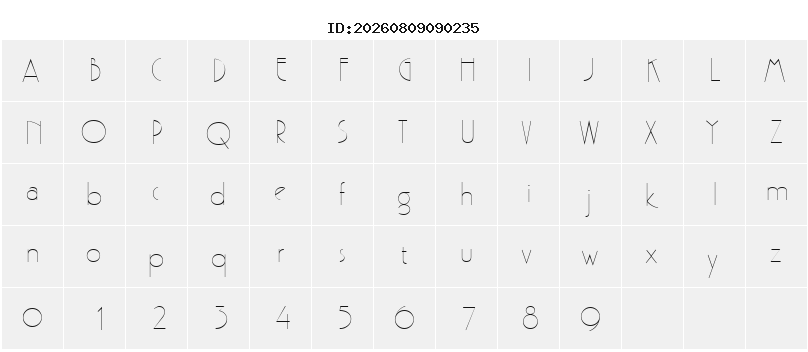
• Font Name: Pergamon DB
• Full Font Name: Pergamon DB
About Pergamon DB.ttf
Pergamon DB.ttf is a modern, elegant sans-serif font designed for ultimate readability and visual harmony. Perfect for branding, headlines, web design, and print materials.